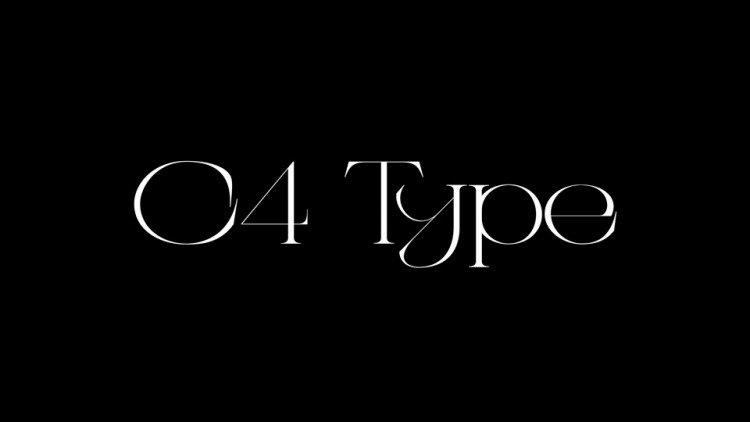
C4 Type Font
C4 Type Font is a stylish typeface combines classic and modern style. It can be used to create almost all types of design projects like print materials. Made from font designer named Bastien Tessanne. Its sharp contrast and refined details, create a beautiful and powerful statement to any typographic composition, mixing luxury with a contemporary aesthetic.